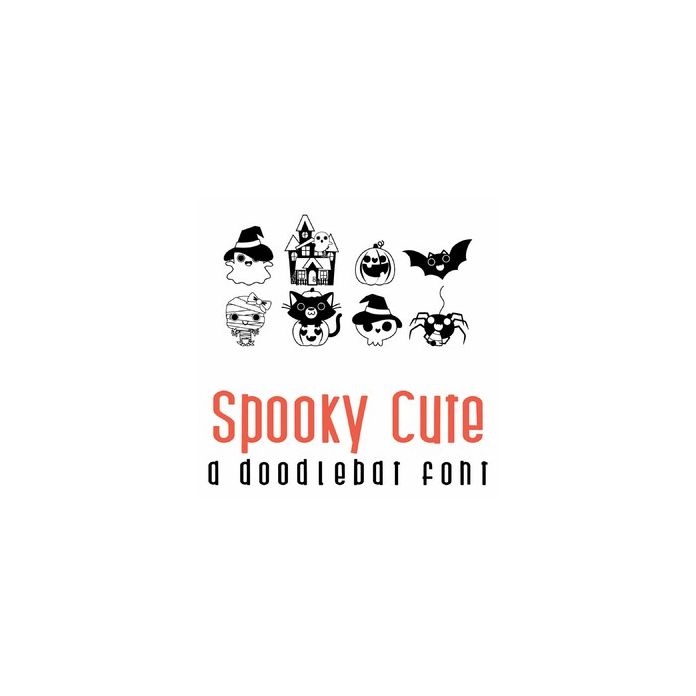
This adorable doodlebat font features 26 cute Halloween characters perfect for parties, gifts, cards, planner stickers, scrap book pages, decor and more!